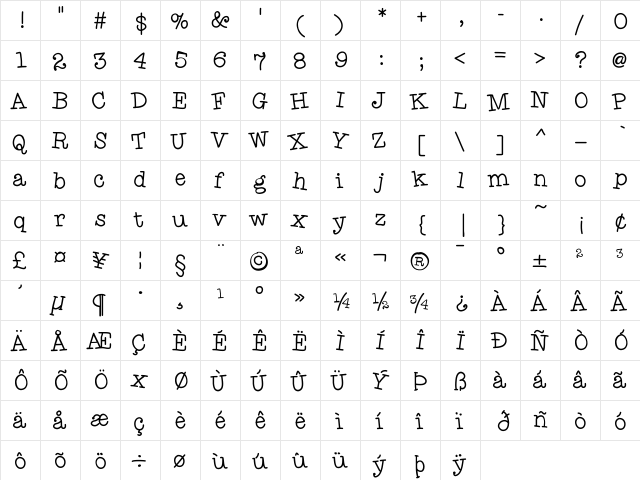
HelloTypeHype Medium
Design Context for HelloTypeHype Typeface
HelloTypeHype offers clean, dependable letterforms without strong stylistic allegiance, making it a practical choice for designers who need flexibility.
Pro Tip: Pair HelloTypeHype with a font of contrasting weight or personality to build a more expressive typographic hierarchy.